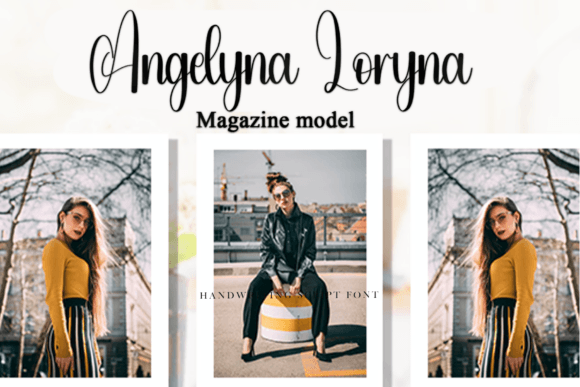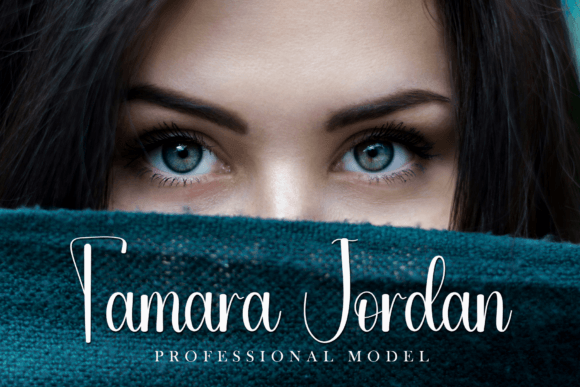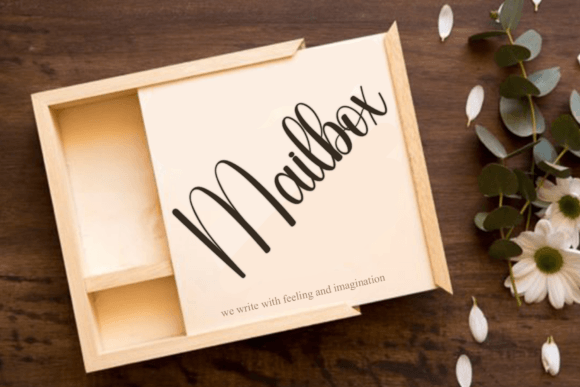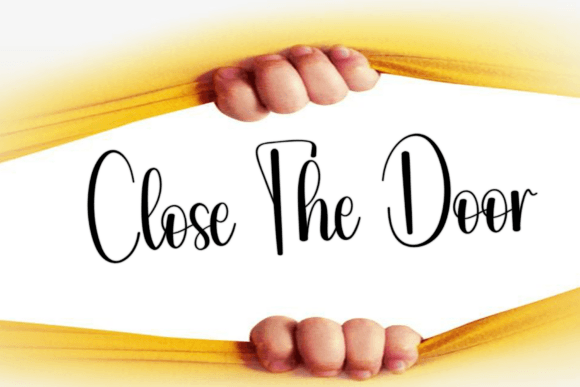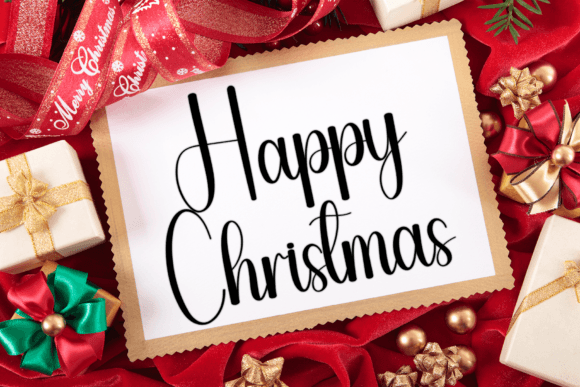
The Magic of Grinch Font: A Holiday Design Delight
Ah, the holiday season. A time for joy, giving, and designing projects that spark cheer. I recall a particularly stressful design moment last December, frantically working on a client’s Christmas card project, searching for the perfect font to capture the festive spirit. The design needed to be merry, playful, and whimsical, but my font library was coming up short. That’s when I stumbled upon the Grinch Font, and it instantly became the hero of my holiday design woes.
An Honest Review: What I Love and a Few Quirks
Here’s what makes Grinch Font a standout in my book:
- ✨ Festive and merry vibe that instantly elevates holiday designs
- ✅ Decorative elements and whimsical flair add a touch of enchantment
- 🎉 Perfect for greeting cards, gift tags, and holiday-themed projects
- 📚 Brings a cheerful and nostalgic ambiance to words
While Grinch Font is a delightful addition to any design project, there are a few quirks to consider:
- 🤔 Limited use outside of holiday-themed designs; might not be the best fit for non-seasonal projects
- ⚠️ Some decorative elements may not display well at smaller font sizes
The Story Behind Grinch Font: A Designer’s Inspiration
Grinch Font was created with the intention of capturing the whimsical and festive spirit of the holiday season. Inspired by classic children’s book illustrations and vintage holiday cards, the designer aimed to craft a font that would evoke feelings of joy and nostalgia. The result is a delightful typeface that adds a touch of magic to any holiday design project.
| Font Name | Grinch Font |
| Author | Black line |
| Q: Does Grinch Font include OpenType features? | A: Yes, Grinch Font includes a range of OpenType features, such as stylistic alternates, ligatures, and glyphs, to enhance your designs. |